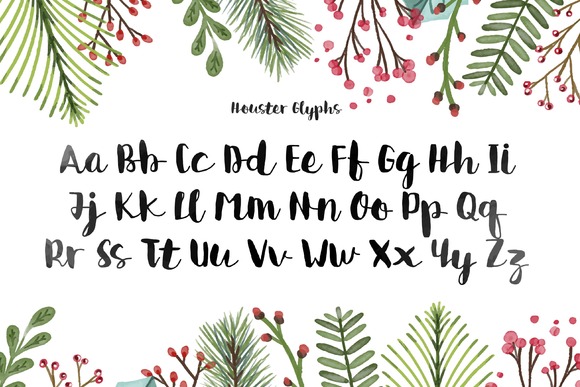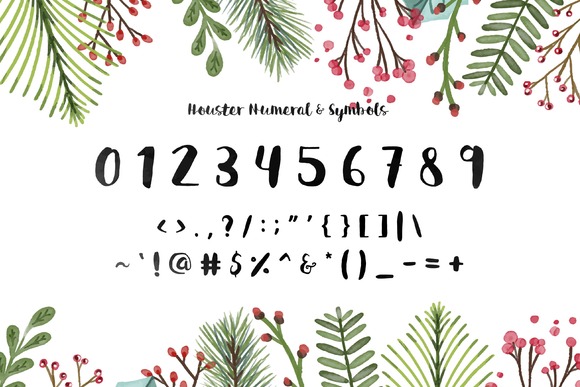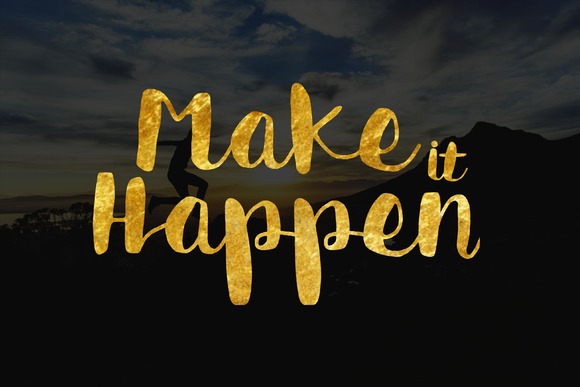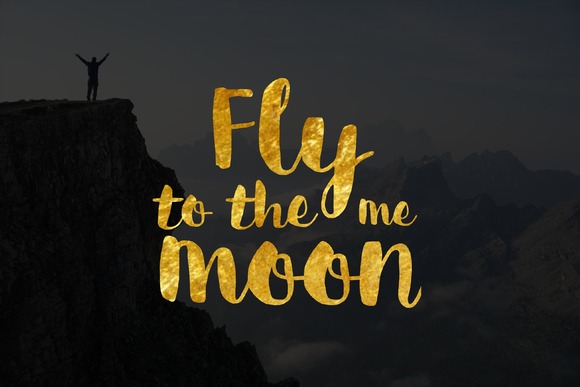
Houster Font
About Houster Font
Houster is a stunning hand-lettered script font by Sameeh Media. This elegant font is designed to create an imperfect hand-sketched look and feel.